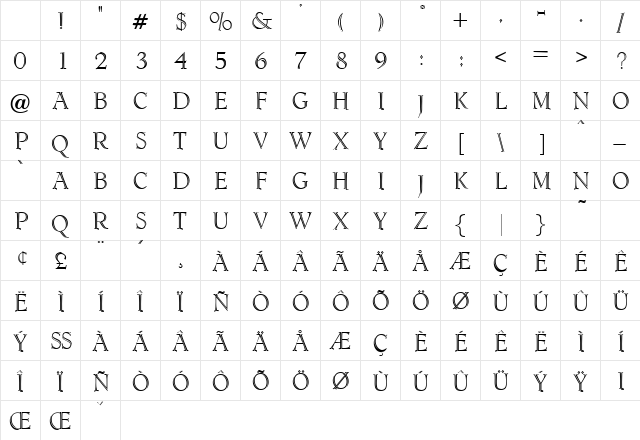
Complete Dagenham DB Regular glyph index. Displaying only characters natively supported by Dagenham DB Regular font.
Dagenham DB is a composed and adaptable typeface that performs quietly and consistently across a wide range of design contexts.